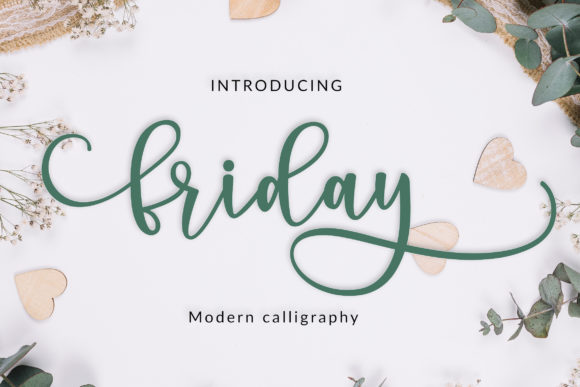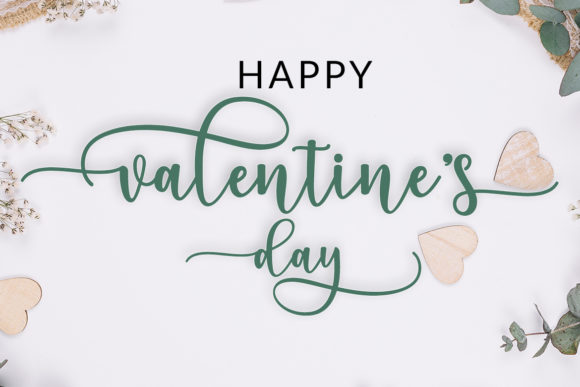
Friday Font
Friday is a sweet, soft hand-lettered script font. It features awesome swashes, stylistic Sets and stylistic alternates. Friday is the perfect font for making original and outstanding designs.